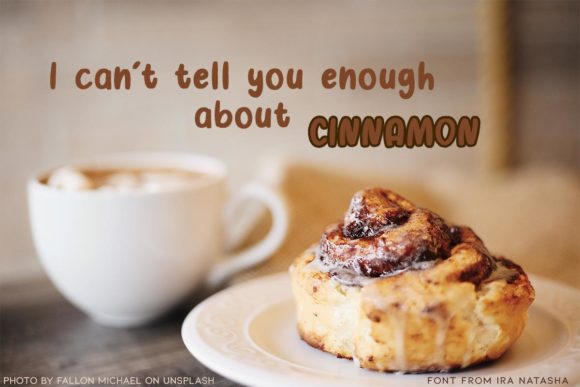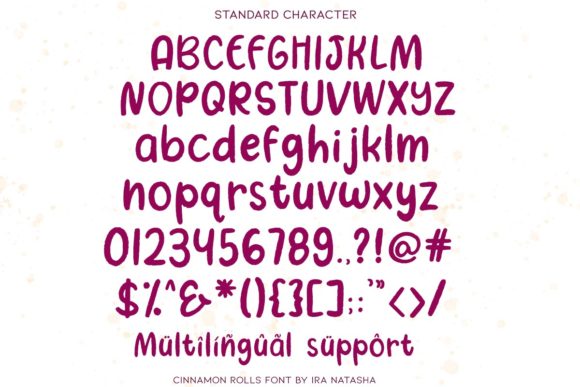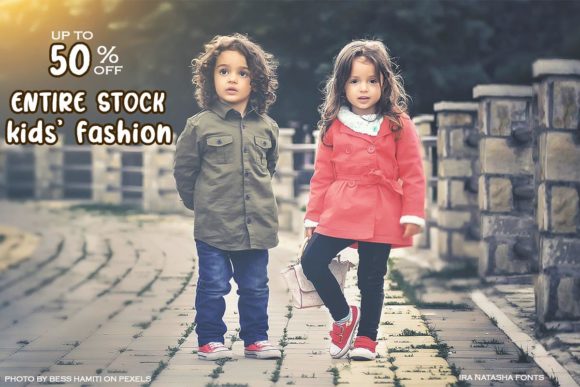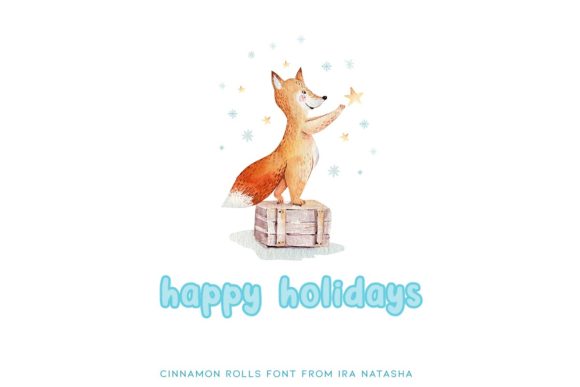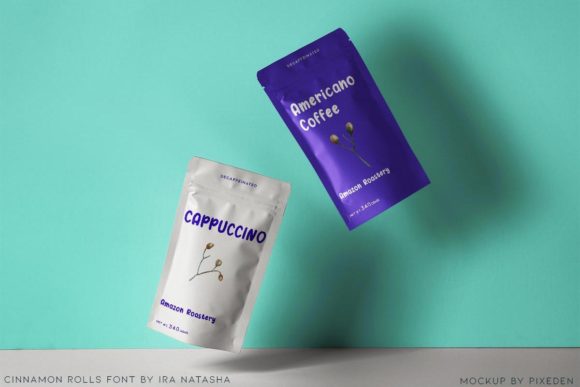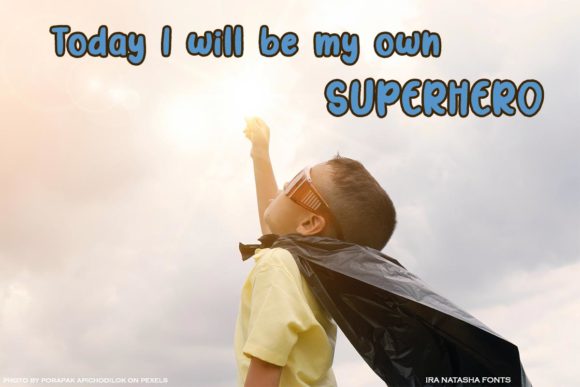
Cinnamon Rolls Font: The Sweetest Addition to Your Design Collection
Are you a designer or crafter looking for a font that can add a touch of warmth and personality to your projects? Look no further than Cinnamon Rolls Font! This sweet and friendly handwritten font is perfect for a wide range of designs, from branding and packaging to invitations and DIY crafts.
The Charm of Cinnamon Rolls Font
Cinnamon Rolls Font is a unique and natural script font that is sure to capture the hearts of your audience. Its distinctive style is reminiscent of handwritten notes and letters, making it perfect for designs that require a personal touch. The font’s irregularities and quirks give it a charming, homemade feel that is sure to set your designs apart from the crowd.
What Makes Cinnamon Rolls Font So Versatile?
One of the best things about Cinnamon Rolls Font is its incredible versatility. Its natural and unique style makes it incredibly fitting to a large pool of designs, from rustic and vintage-inspired projects to modern and minimalist designs. Whether you’re creating a logo, a poster, or a social media graphic, Cinnamon Rolls Font is sure to add a touch of warmth and personality to your design.
Cinnamon Rolls Font is a dream come true for designers and crafters who are looking for a font that can add a personal touch to their projects. Whether you’re creating custom wedding invitations, crafting handmade cards, or designing bespoke packaging, this font is sure to inspire your creativity. Its friendly and approachable style makes it perfect for designs that require a human touch.
The only limit to what you can create with Cinnamon Rolls Font is your imagination! Here are just a few ideas to get you started:
- Create a custom logo for your small business or brand
- Design a set of handmade cards or invitations for a special occasion
- Develop a unique and eye-catching packaging design for your product
- Create a social media graphic or blog post that stands out from the crowd
- Make a beautiful and personalized journal or planner
Why Choose Cinnamon Rolls Font?
So why choose Cinnamon Rolls Font over other fonts on the market? Here are just a few reasons:
- Unique and natural style that sets it apart from other fonts
- Versatile and adaptable to a wide range of designs
- Easy to read and understand, even in smaller sizes
- Perfect for designs that require a personal touch
Get Creative with Cinnamon Rolls Font
In conclusion, Cinnamon Rolls Font is a sweet and friendly handwritten font that is perfect for designers and crafters who are looking for a unique and versatile font to add to their collection. With its natural and unique style, this font is sure to capture the hearts of your audience and set your designs apart from the crowd. So why wait? Download Cinnamon Rolls Font today and start creating your own amazing designs!